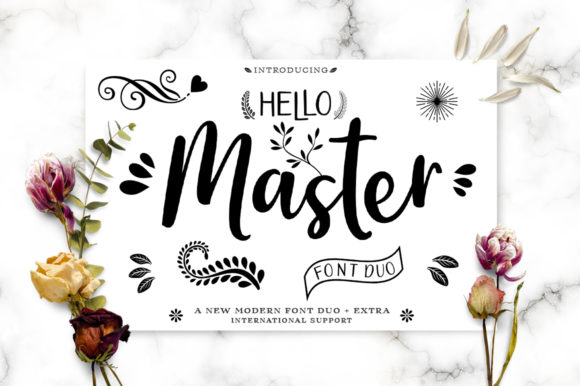
Behold the Hello Master Trio Font, a typographic masterpiece that effortlessly blends the charm of handwritten strokes with the elegance of digital precision. Its carefully crafted characters, reminiscent of a skilled calligrapher's penmanship, dance across the page with a captivating rhythm. This font family, comprising three distinct styles—sans serif, script, and dingbats—is an artistic chameleon, adapting seamlessly to a myriad of creative endeavors.
Picture your wedding invitations adorned with the Hello Master Trio script font, the flowing letters emulating the heartfelt sentiments of your love story. As your guests unfold the invitation, they'll be greeted by words that seem to have been penned with the utmost care, conveying the joy and anticipation of your special day.
Imagine thank-you cards that radiate gratitude, their messages penned in the graceful strokes of the Hello Master Trio script. Each word, meticulously crafted, becomes a testament to your appreciation, leaving a lasting impression on the hearts of your loved ones.
The Hello Master Trio sans serif font, with its clean lines and modern aesthetic, lends a touch of sophistication to logos and business cards. Its crisp edges and sharp angles convey a sense of professionalism and trustworthiness, making it an ideal choice for businesses seeking to project an image of competence and reliability.
Unleash your creativity with the Hello Master Trio dingbats font, a treasure trove of whimsical illustrations and decorative elements. From delicate hearts and elegant swirls to playful stars and intricate borders, these charming characters add a touch of magic to any project. Design greeting cards that come alive with festive cheer, or create social media posts that sparkle with visual delight.
The Hello Master Trio font family is a versatile gem, capable of transforming ordinary designs into captivating works of art. Its three distinct styles provide endless possibilities for expression, allowing you to weave a tapestry of visual beauty that captivates the imagination.